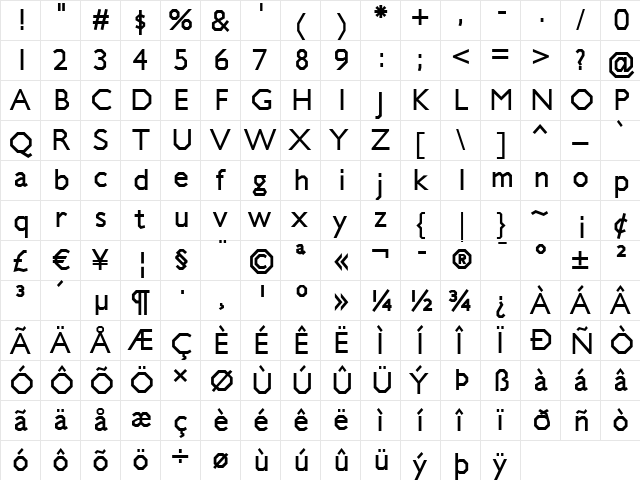
Jillican Bold
Design Context for Jillican Typeface
Jillican is a composed and adaptable typeface that performs quietly and consistently across a wide range of design contexts. The heavy weight commands attention and anchors typographic hierarchies.
Pro Tip: Use Jillican in both headline and body roles to test its range before committing to a single application.